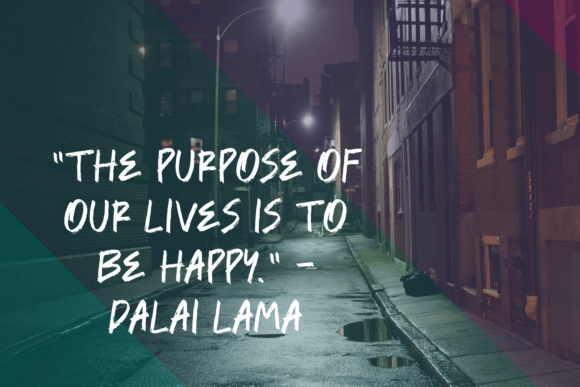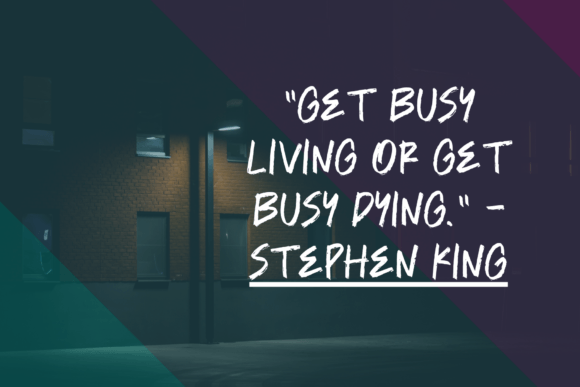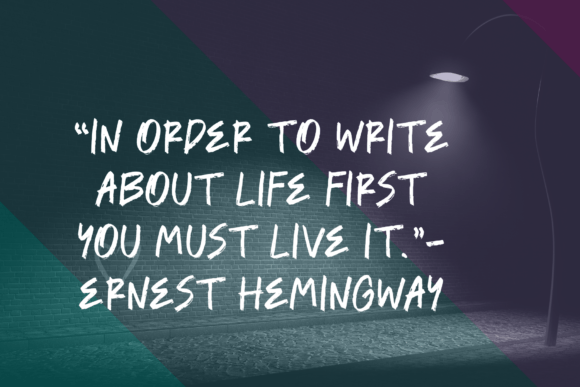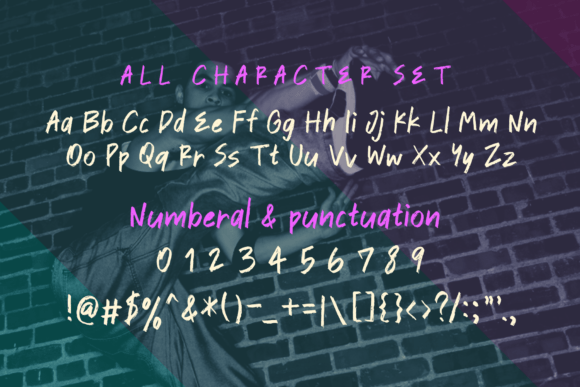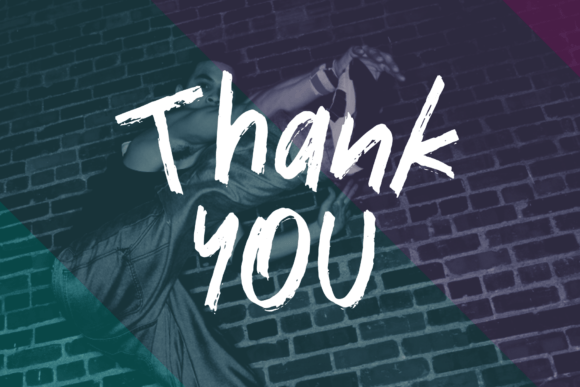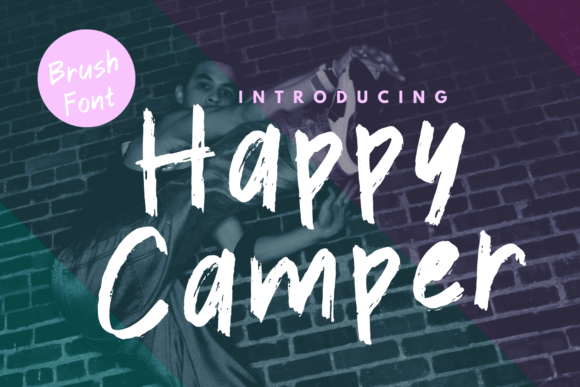
Introducing Happy Camper Font: The Perfect Brush Font for Your Creative Projects
Are you a designer, crafter, or DIY enthusiast looking for a font that embodies playfulness and authenticity? Look no further than Happy Camper Font! This brush font is the perfect choice for adding a personal touch to your favorite projects, from blog posts and logos to invitations and decorations.
What is Happy Camper Font?
Happy Camper Font is a unique brush font that is designed to bring a sense of fun and playfulness to your designs. With its natural, hand-brushed look, this font is perfect for creating authentic and eye-catching designs that stand out from the crowd.
What Makes Happy Camper Font So Special?
So, what sets Happy Camper Font apart from other fonts on the market? Here are just a few reasons why designers and crafters love this font:
• Playful and Authentic: Happy Camper Font has a natural, hand-brushed look that gives your designs a playful and authentic feel.
• Versatile: This font can be used for a wide range of projects, from blog posts and logos to invitations and decorations.
How to Use Happy Camper Font in Your Designs
Happy Camper Font is perfect for adding a personal touch to your designs. Here are just a few ideas for how you can use this font in your projects:
• Blog Posts: Add Happy Camper Font to your blog posts to give them a playful and eye-catching look.
• Logos and Branding: Use Happy Camper Font to create unique and memorable logos and branding materials.
• Invitations and Greeting Cards: Add a personal touch to your invitations and greeting cards with Happy Camper Font.
• Decorations: Use Happy Camper Font to create eye-catching decorations for parties, events, and more.
• Planners and Photo Albums: Add Happy Camper Font to your planners and photo albums to give them a personal and playful touch.
Tips for Getting the Most Out of Happy Camper Font
Here are a few tips for getting the most out of Happy Camper Font:
• Experiment with Different Sizes and Colors: Try out different sizes and colors to see what works best for your design.
• Pair with Other Fonts: Happy Camper Font pairs well with other fonts, so don’t be afraid to experiment with different combinations.
• Use for Headings and Titles: Happy Camper Font is perfect for headings and titles, where its playful and eye-catching look can really shine.
Happy Camper Font is a unique and versatile brush font that is perfect for designers, crafters, and DIY enthusiasts. With its playful and authentic look, this font is sure to add a personal touch to your favorite projects. Whether you’re creating blog posts, logos, invitations, or decorations, Happy Camper Font is the perfect choice. So why wait? Download Happy Camper Font today and start creating!
So, add Happy Camper Font to any of your designs and enjoy the results! You can use it for a wide range of projects, and it’s easy to install and use. The font will give your designs a natural, hand-brushed look that’s perfect for creating authentic and eye-catching designs.
In conclusion, Happy Camper Font is a great addition to any design project. Its unique and playful look makes it perfect for a wide range of applications, from blog posts and logos to invitations and decorations. With its ease of use and versatility, Happy Camper Font is a must-have for designers and crafters of all skill levels.